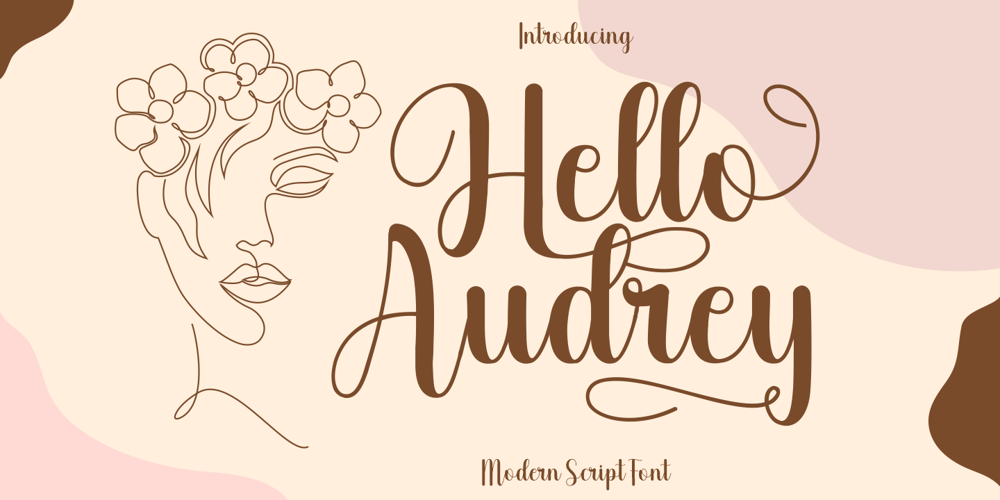
Hello Audrey Font Family was designed by Putra Novembria Candra Kusuma and published by Putracetol. Hello Audrey contains 1 styles and family package options. Hello Audrey is a modern script and wedding font. This font is feminime, elegant, messy and modern.Hello Audrey perfect for wedding event, anniversary, birthday,greeting cards, logotype, branding, wedding invite and card, elegant logo, poster, packaging, stationery, website, and any other projects requiring a handwritten and luxurious touch. Come with open type feature with a lot of alternates, its help you to make great lettering.This font is also support multi language.